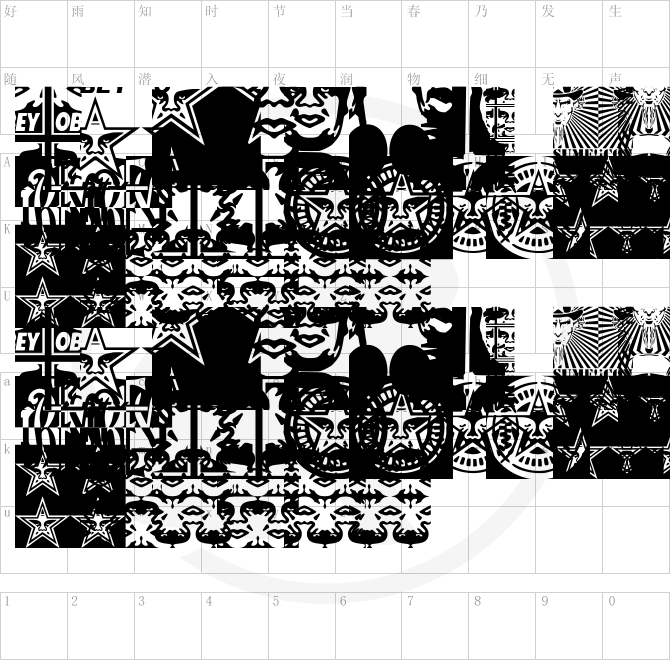
- Font Name:ObeyWrappers
ObeyWrappers.ttf is a very beautiful artistic font, ObeyWrappers.ttf is widely used in the design and printing of various books and pictures,ObeyWrappers.ttf has a strong visual impact,ObeyWrappers.ttf is a commonly used font in newspapers, magazines and books, and is used in posters, e-commerce Poster design, store design, logo design, font design and other fields.ObeyWrappers.